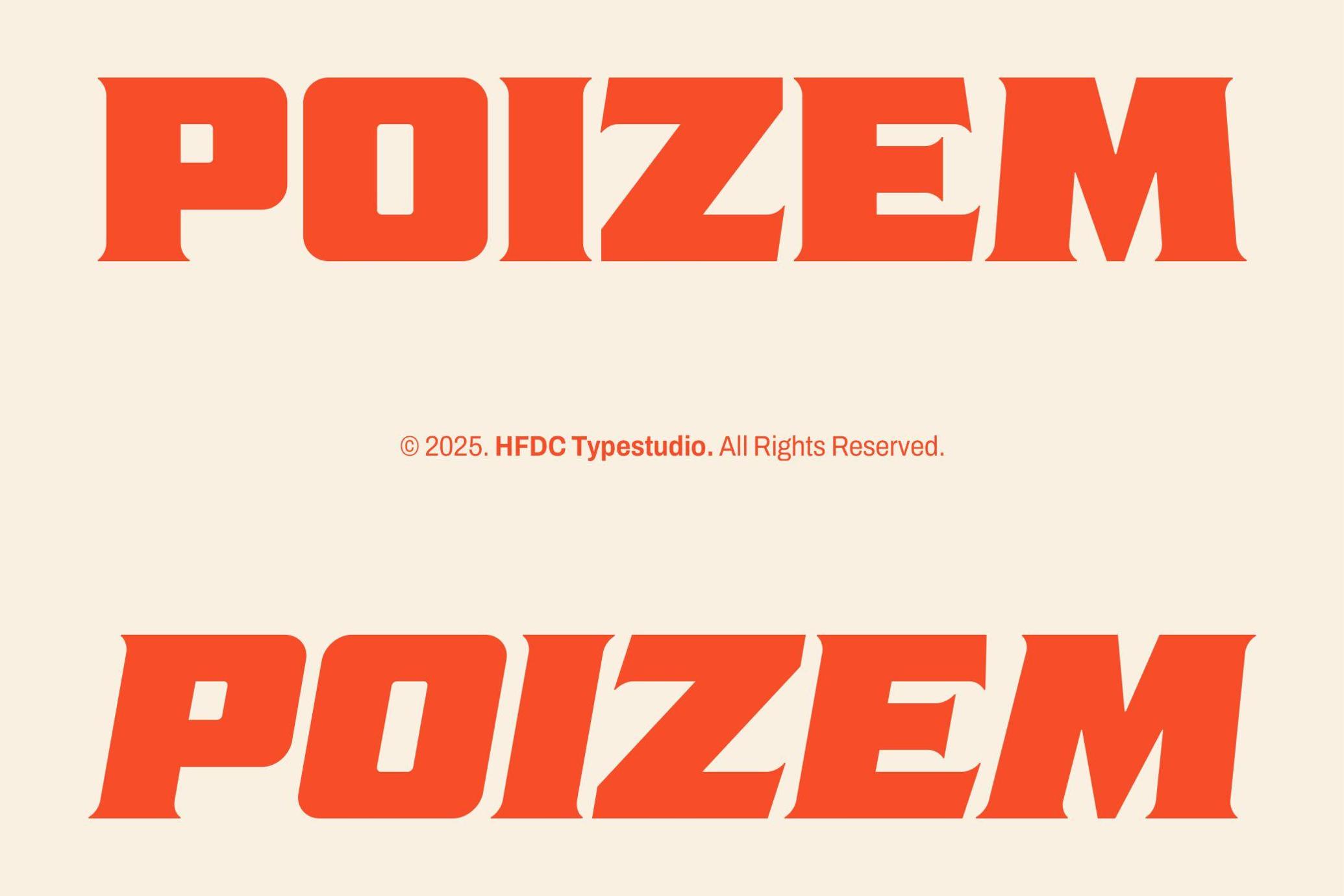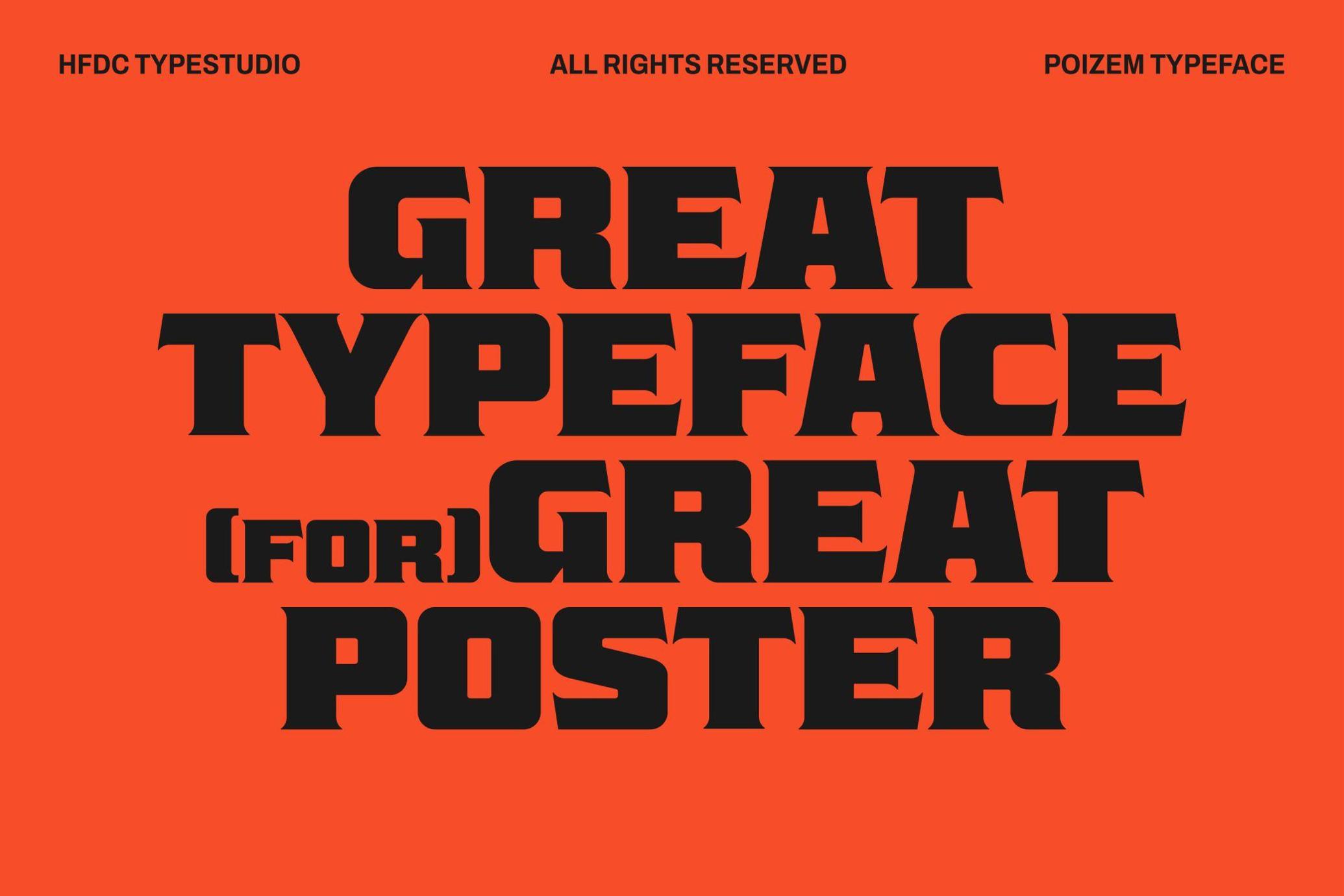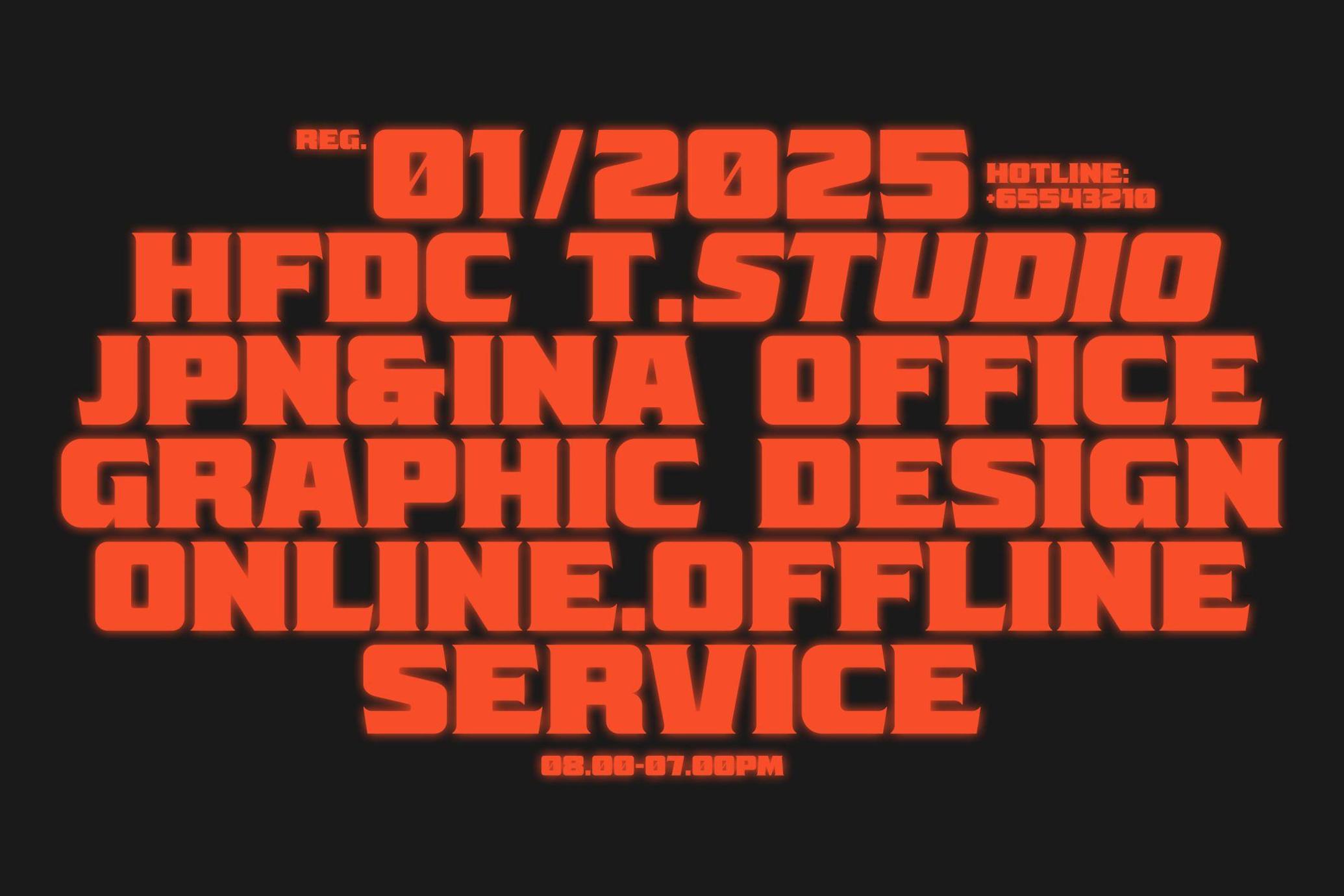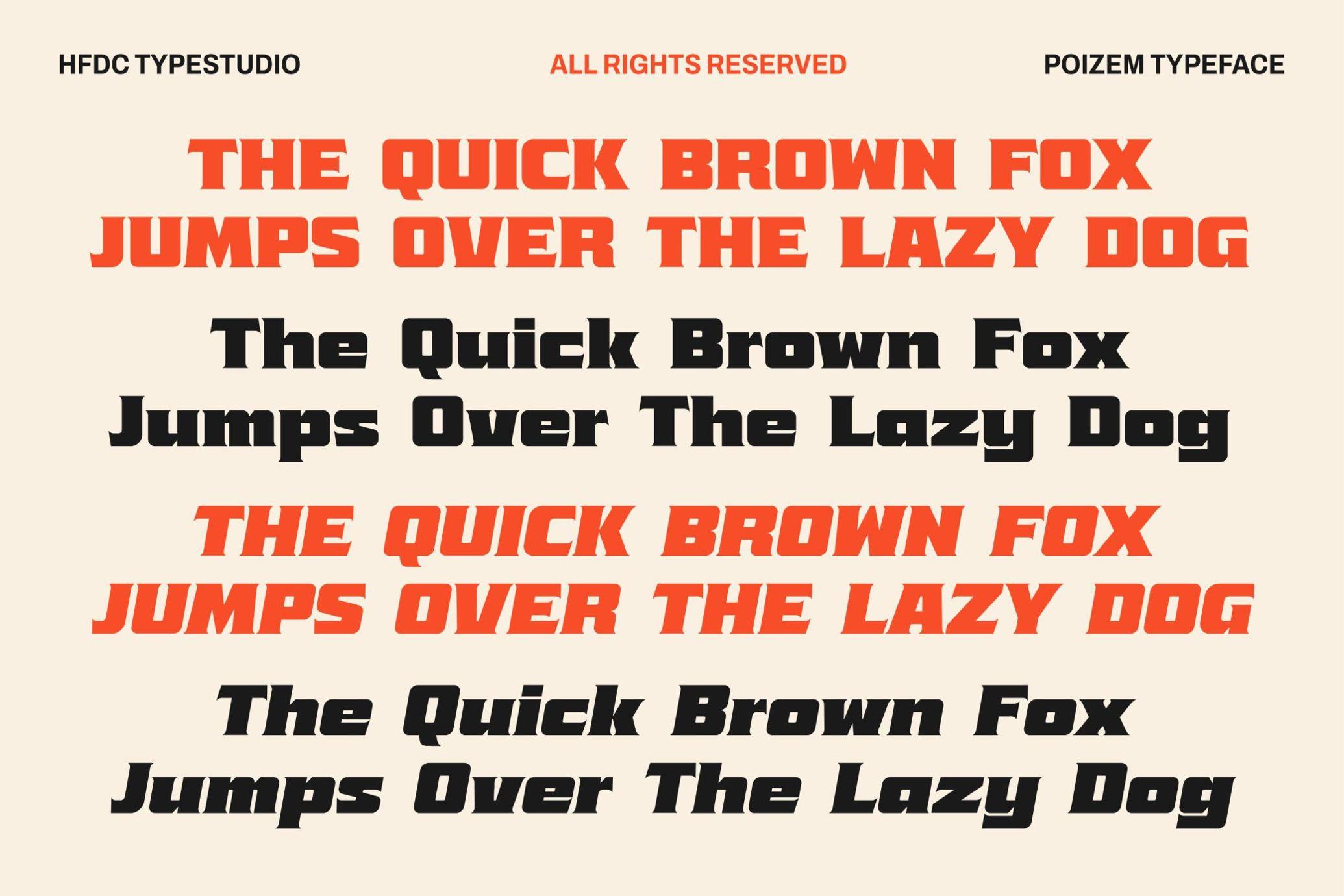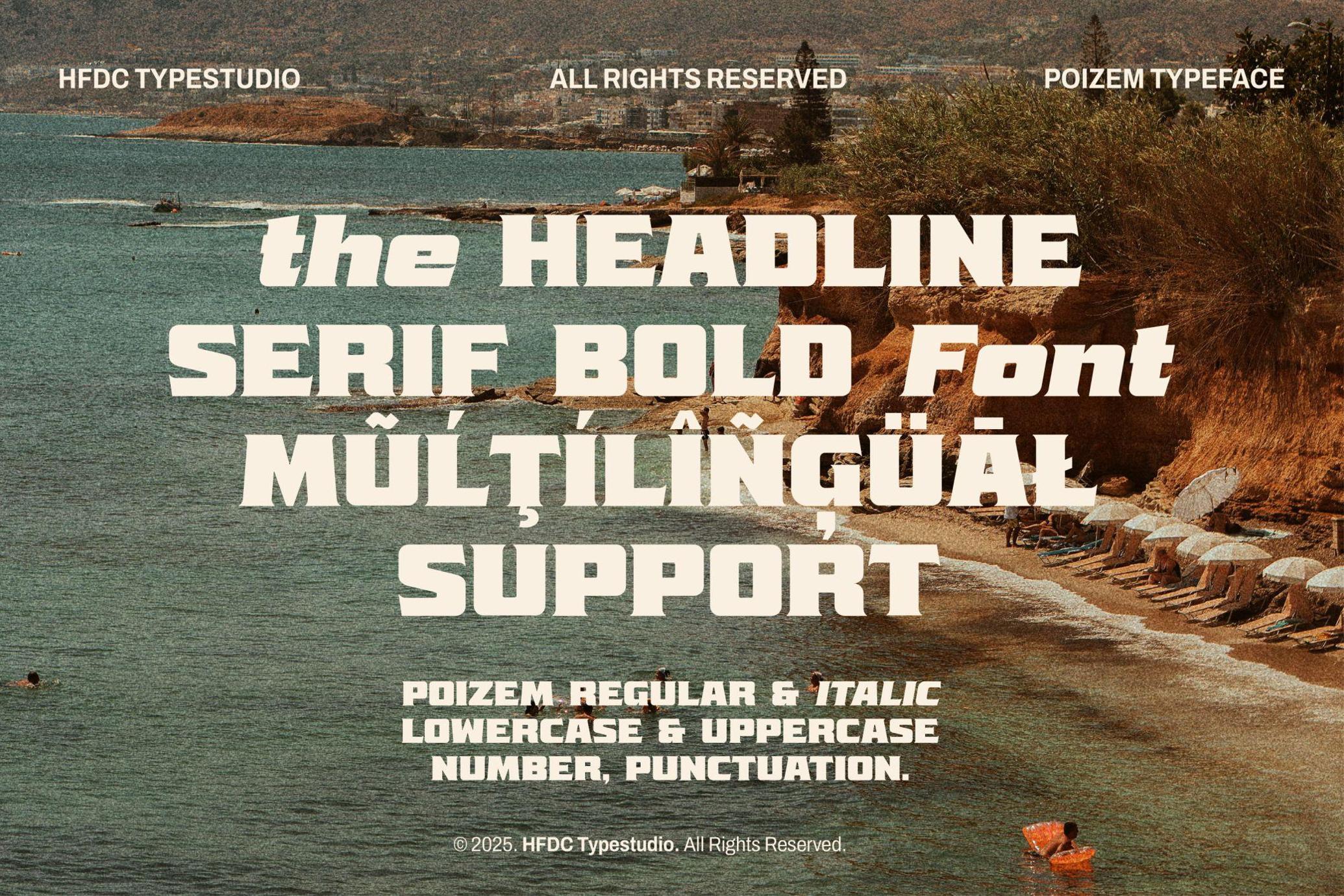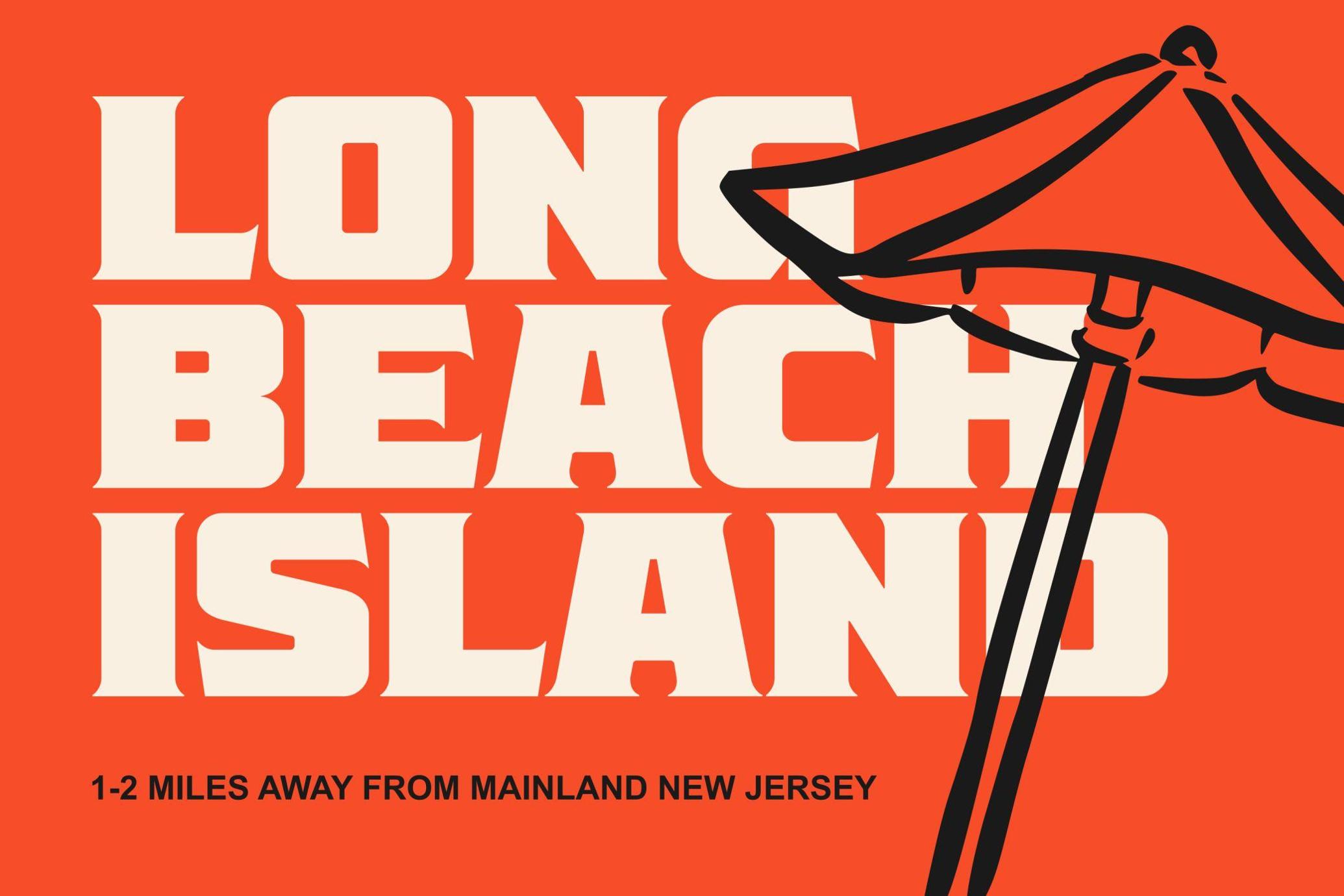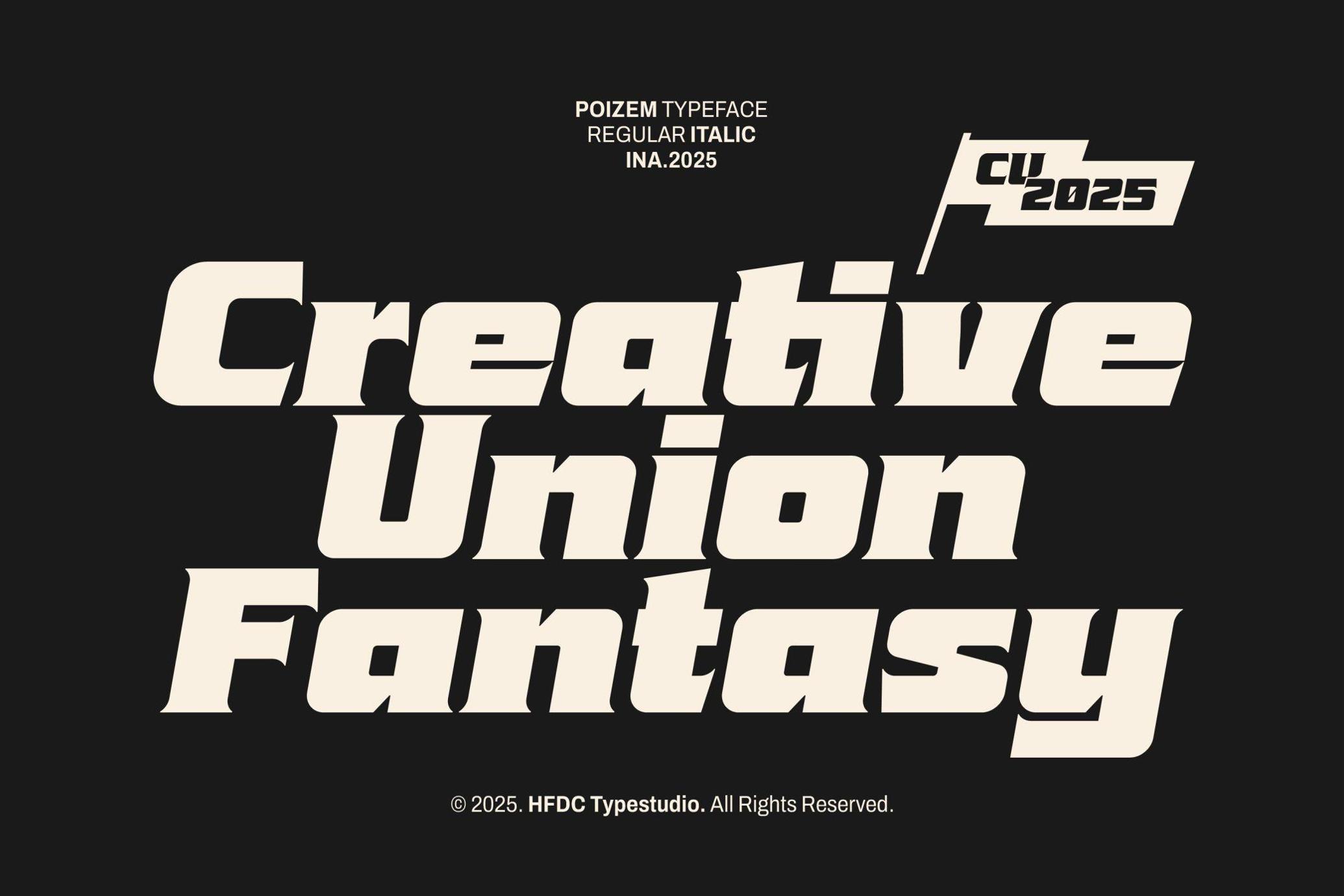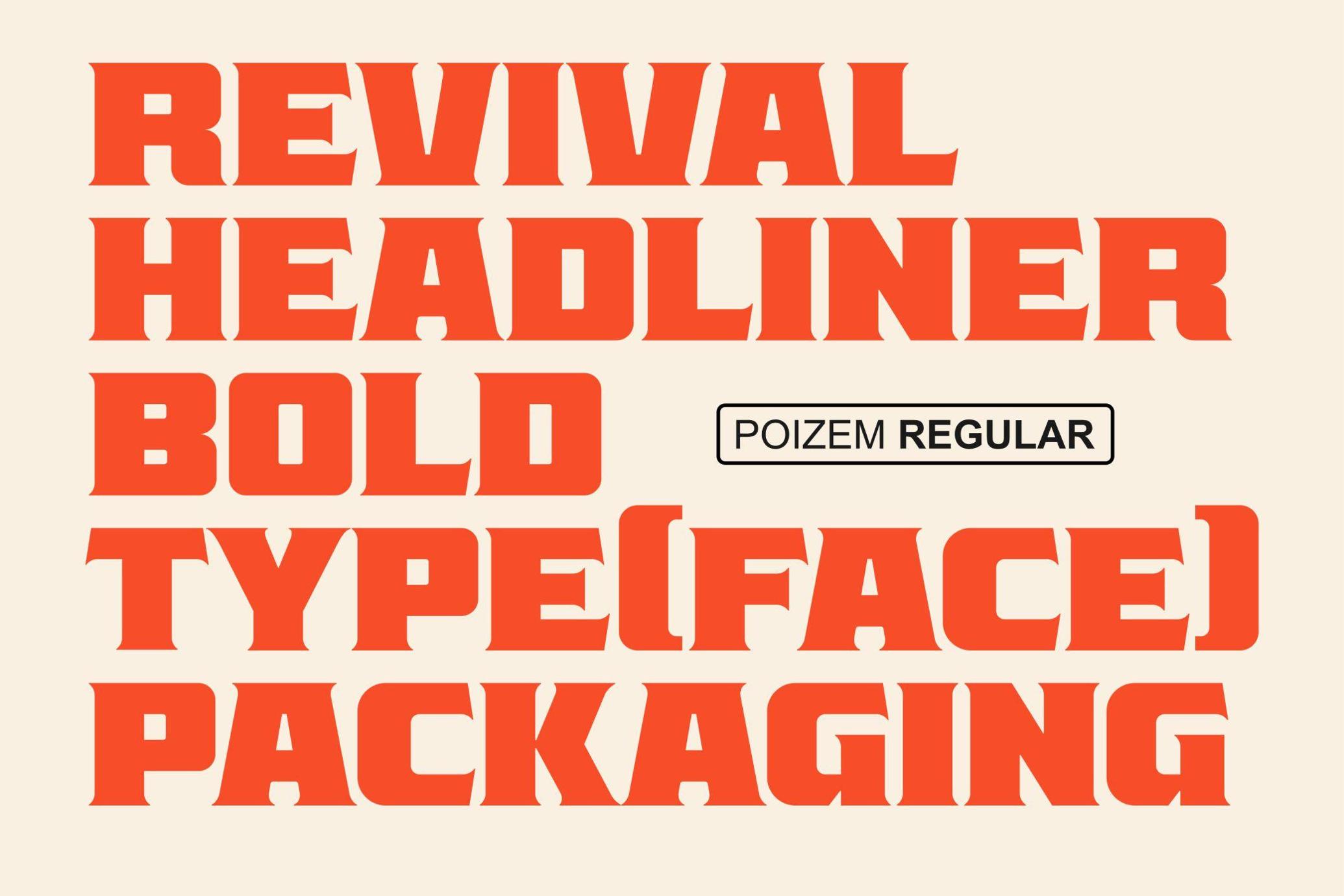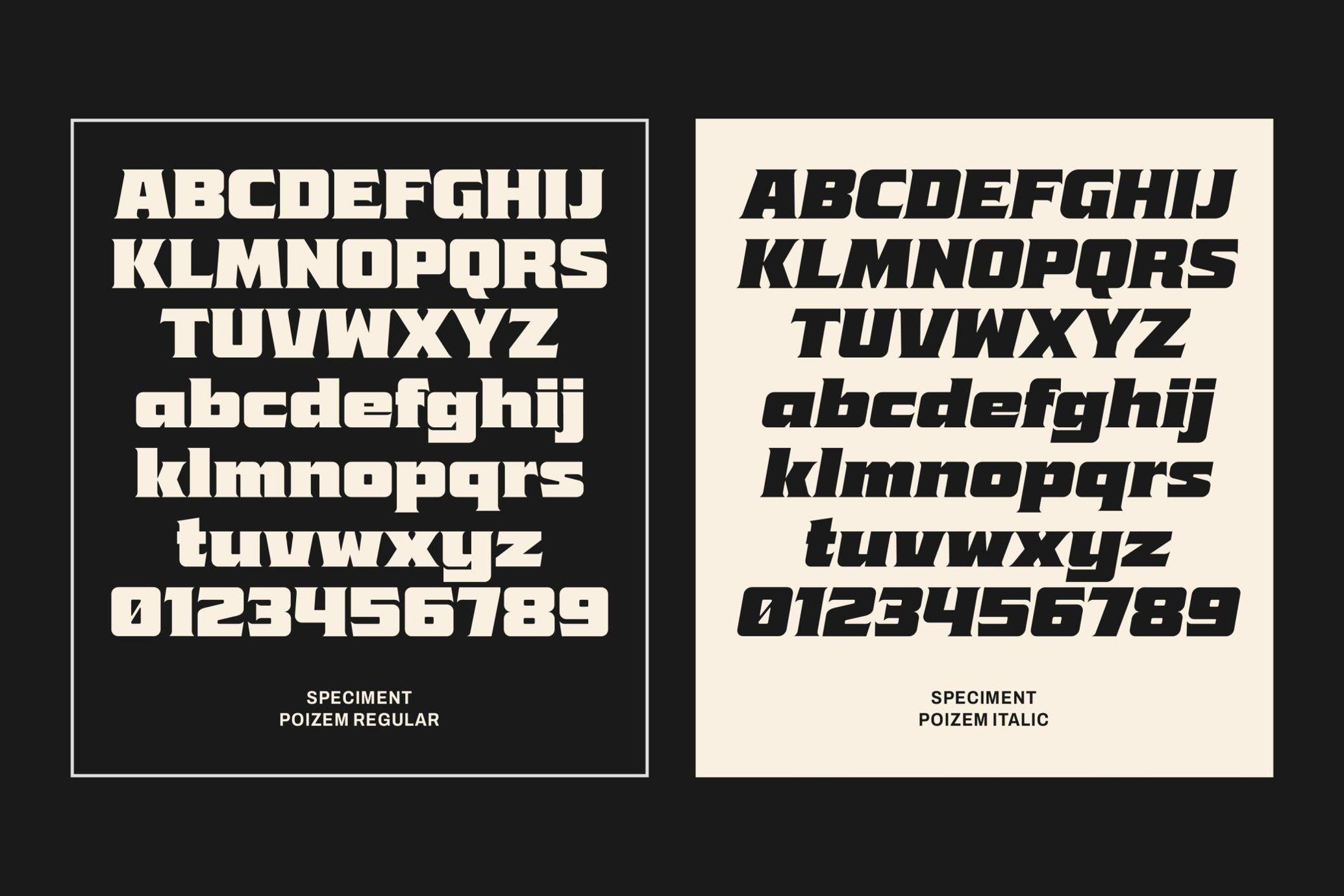
Poizem Serif Typeface
Poizem is available in Regular and italic styles. The Poizem font is included in the category of bolder serif fonts suitable for headlines in your design. With thick and wide characters, it will make your design stand out more.
Poizem is perfect for poster designs, covers, product packaging, content thumbnail titles, branding, promotions, logotypes, and other designs.
- Uppercase and Lowercase
- Standard Ligature
- Number
- Punctuation
- Currency Symbol